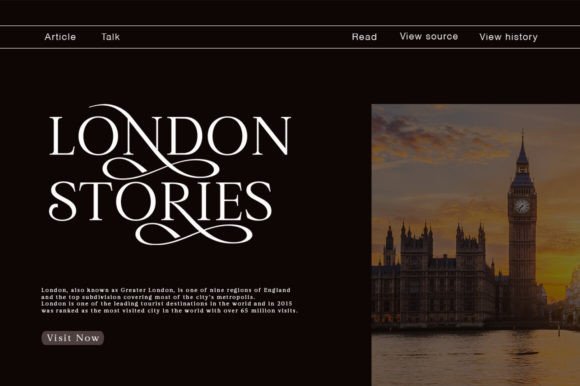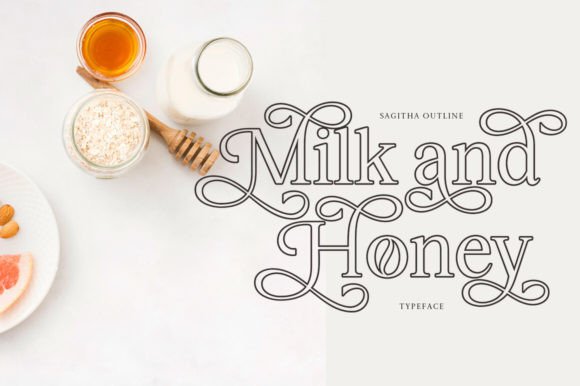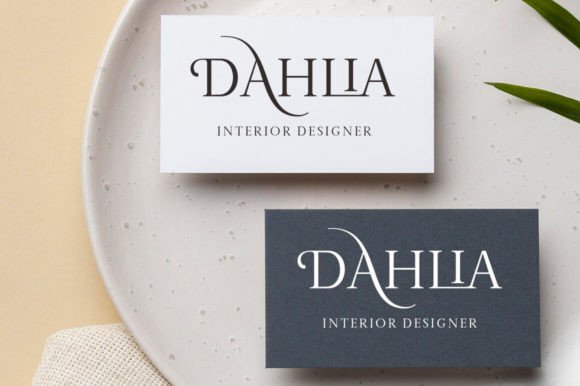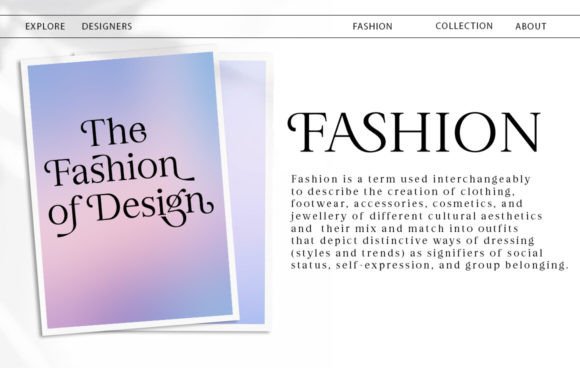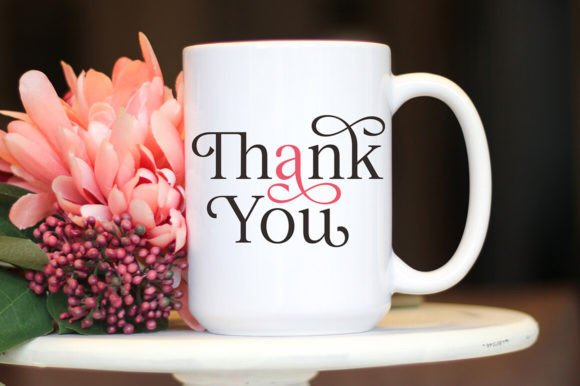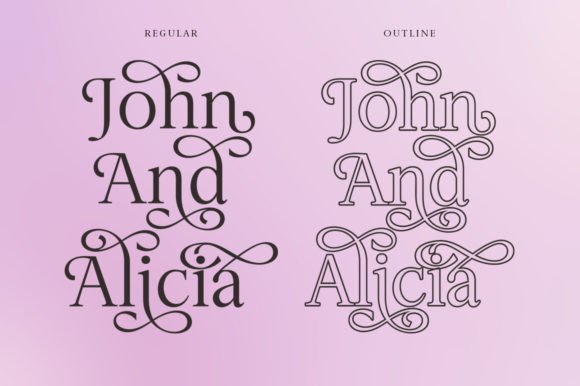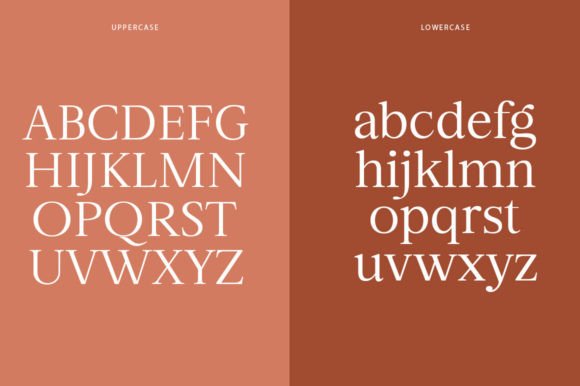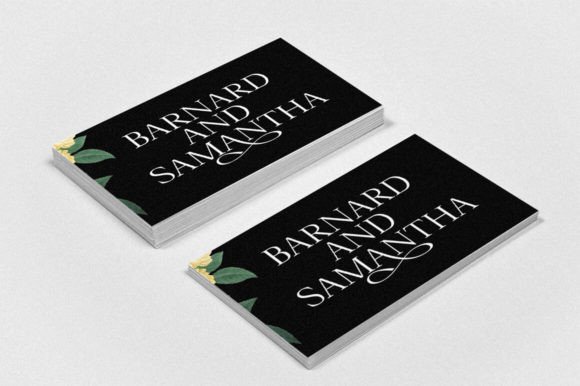
Sagitha Serif Font
Sagitha Serif attracts such a subtle, clean, feminine, sensual, glamorous, simple and very readable typeface. The classic style is perfect to apply in various formal forms such as invitations, labels, menus, Logos, fashion, make up, stationery, letterpress, romantic novels, magazines, books, greeting / wedding cards, packaging, labels
Sagitha Serif also features a strong neoclassical serif typeface with high contrast, cool, stylish and unique look with alternative fonts, Ligatures, and multilingual support